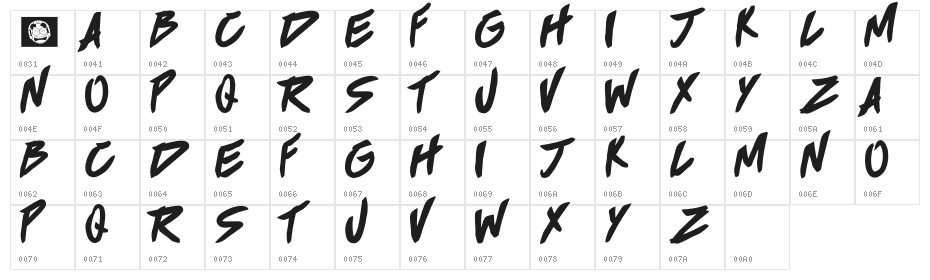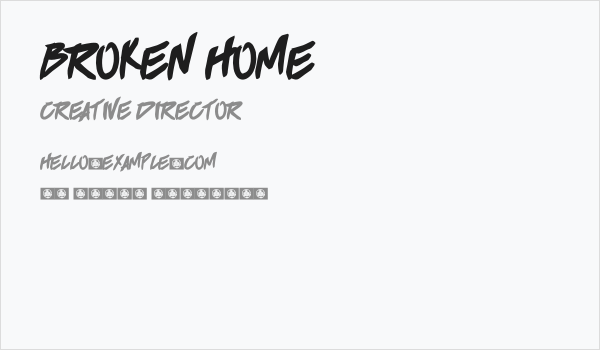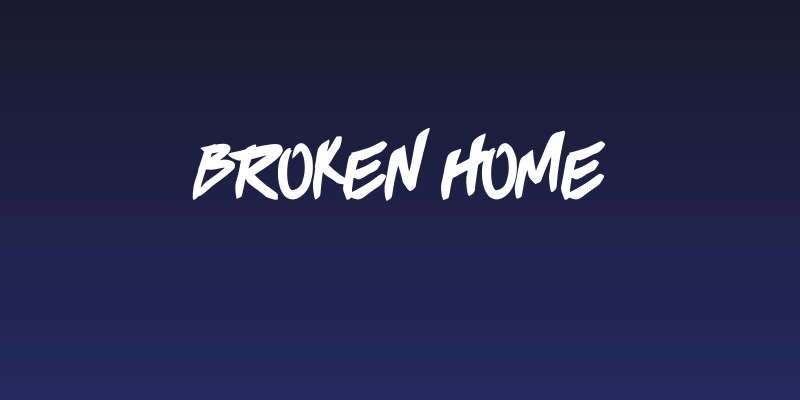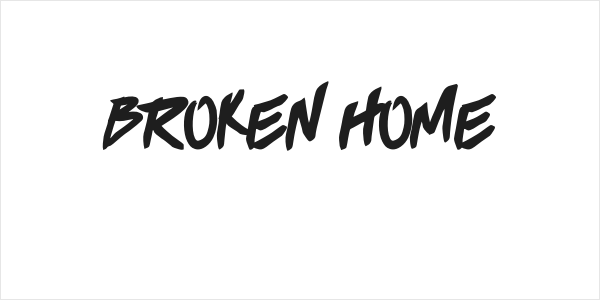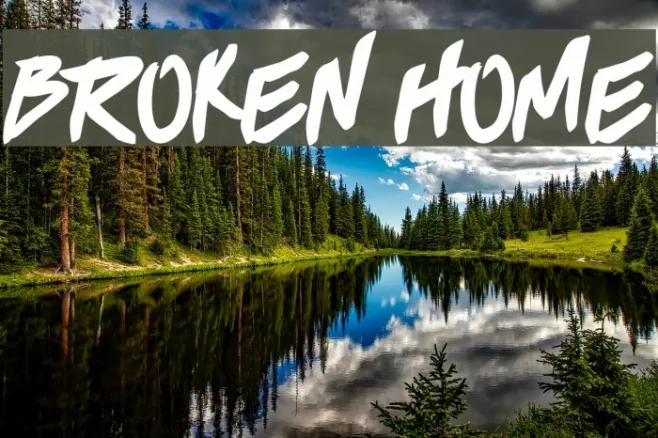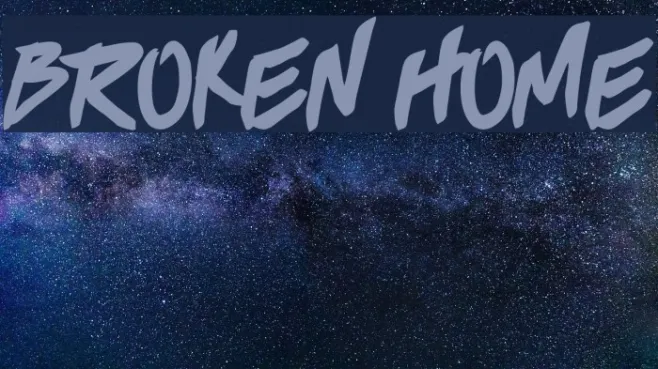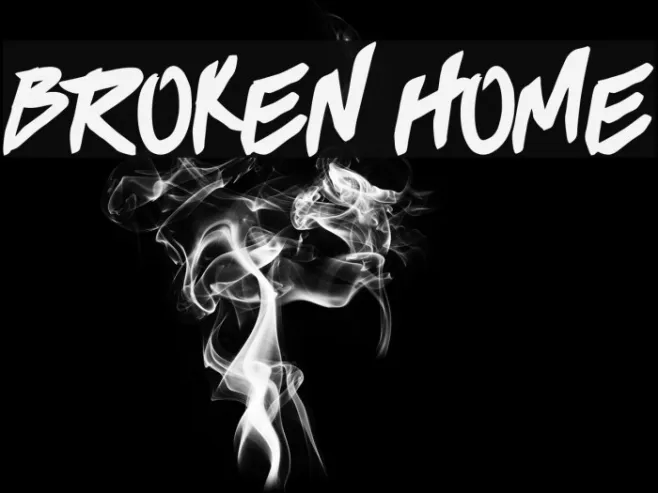
BROKEN HOME Font
BROKEN HOME Description
This font features a bold, expressive style with a handwritten appearance, characterized by dynamic strokes and a sense of movement. The letters are slightly slanted, giving them an energetic and informal look. The uppercase and lowercase letters maintain a consistent style, with thick strokes that vary in width, adding to the font's lively and spontaneous feel. The overall design is reminiscent of graffiti or street art, making it suitable for projects that require a modern, edgy aesthetic. The font's unique character is further enhanced by its irregular edges and varying line thickness, which contribute to its handcrafted appearance.
| Use Case | Logos, Posters, Headlines |
| Proposed Projects | Ideal for urban-themed designs, posters, album covers, and branding that seeks a modern, edgy look. |